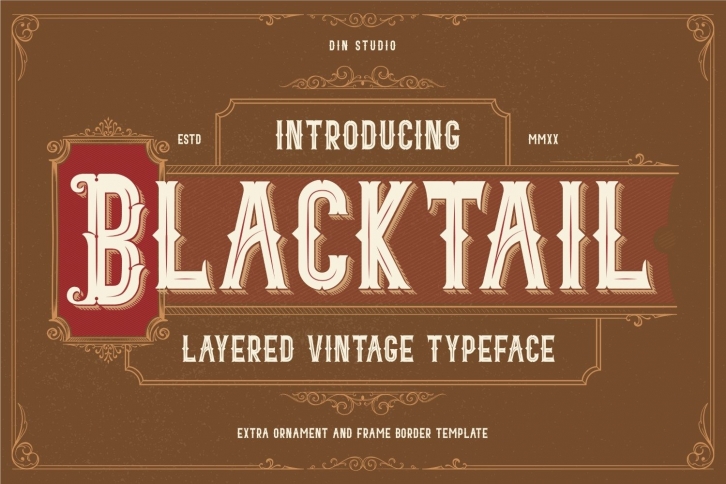
Blacktail is a gorgeous font that was realeased on July 12, 2020. The font can be used in many style contexts and design environments. Perfect for invitations, magazines, websites, logos, and more! It was designed by Din Studio and the file size is 15.38 MB. Thanks for checking out this font!